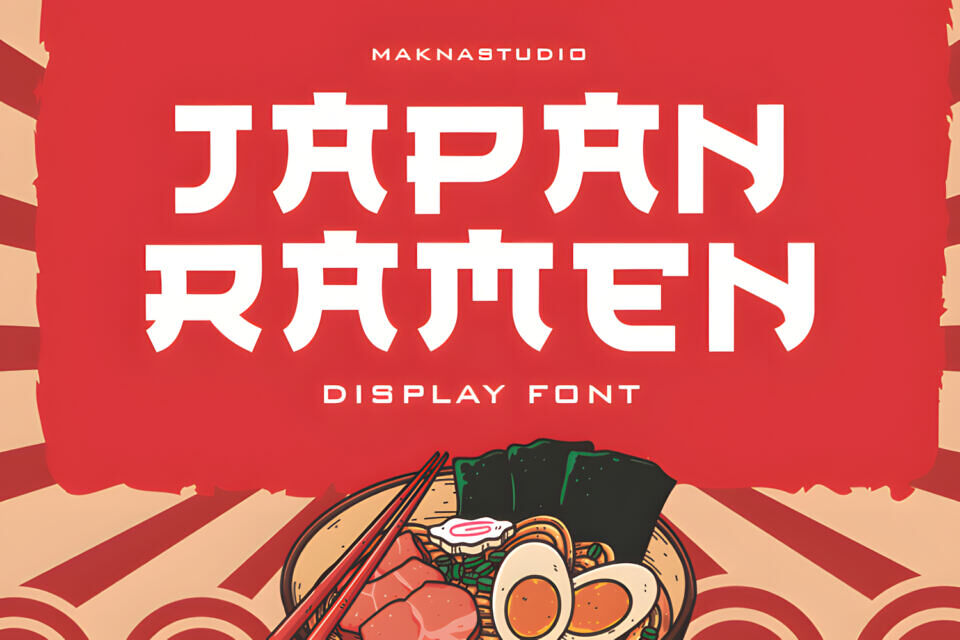
Japan Ramen Font
Japan Ramen is a bold and stylish Japanese-inspired typeface, perfect for menus, posters, logos, or anything that needs a taste of authentic Nippon flair. Let your text slurp up the spotlight!
Designed by: Makna Studio